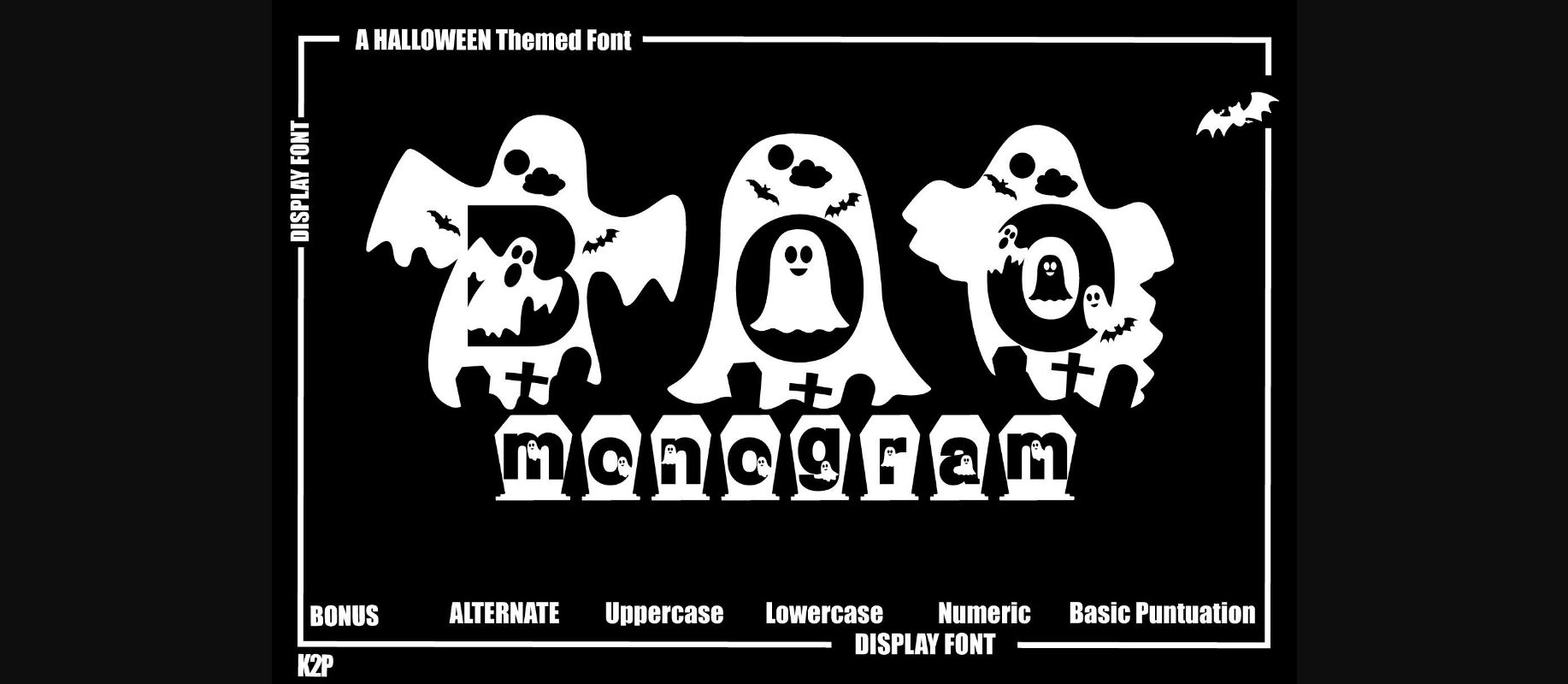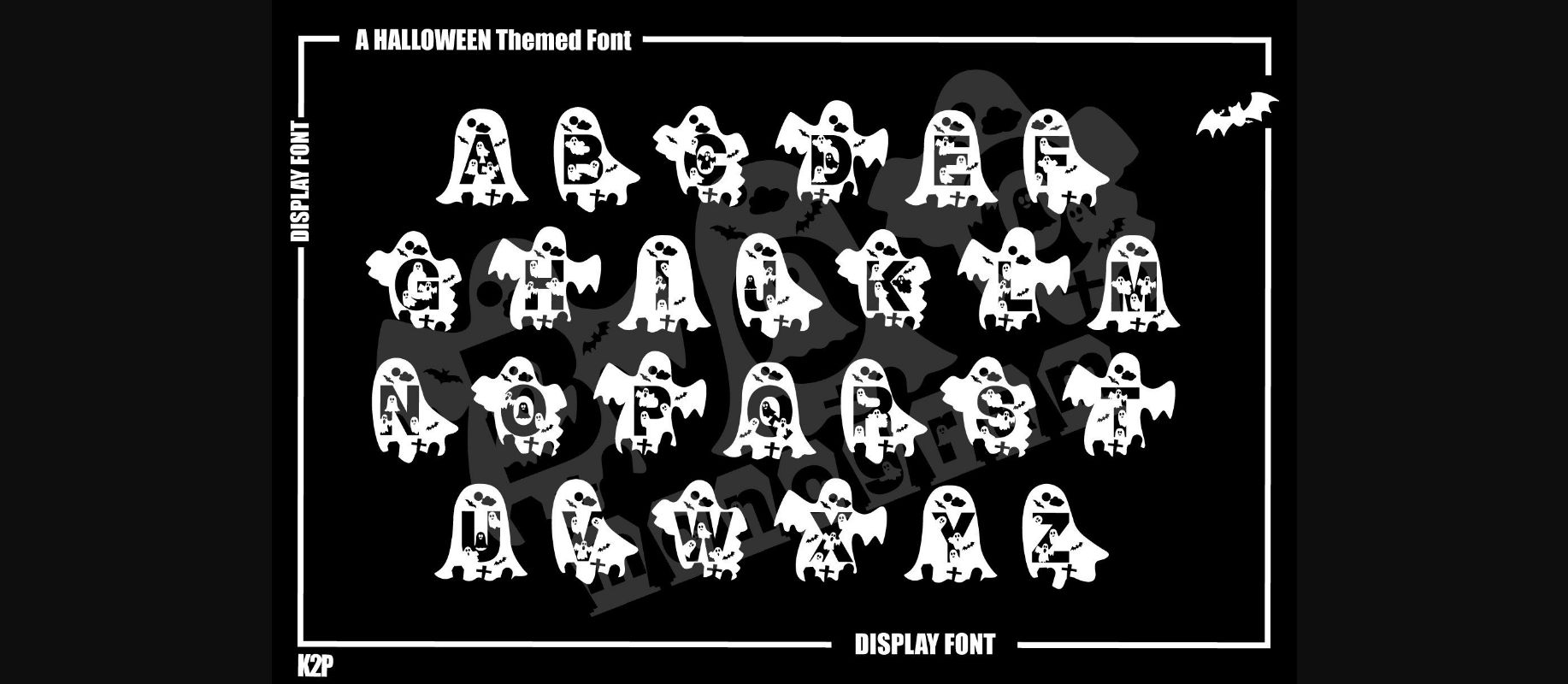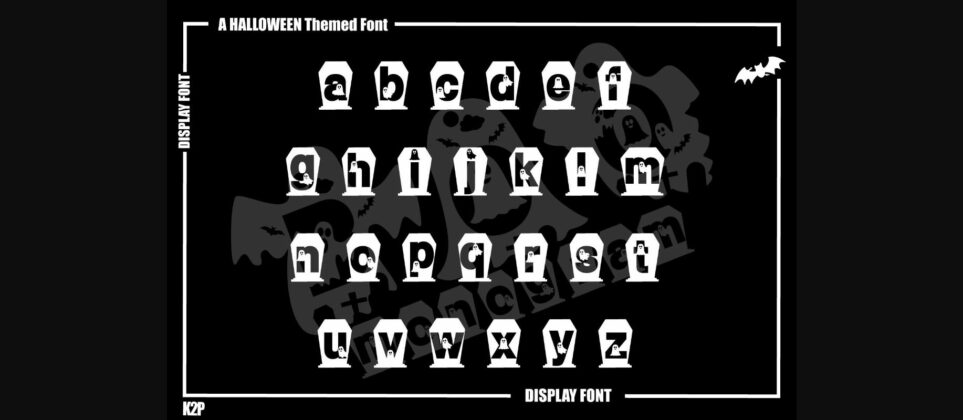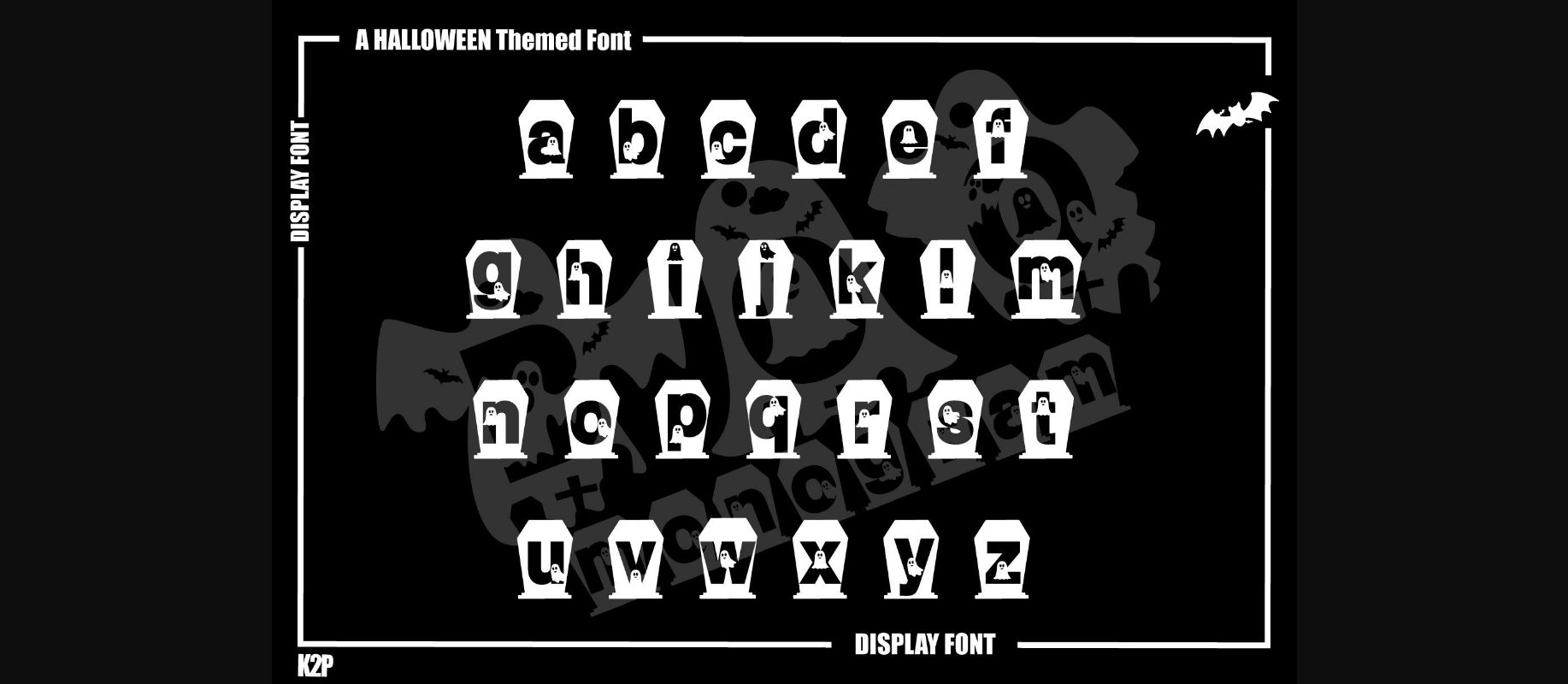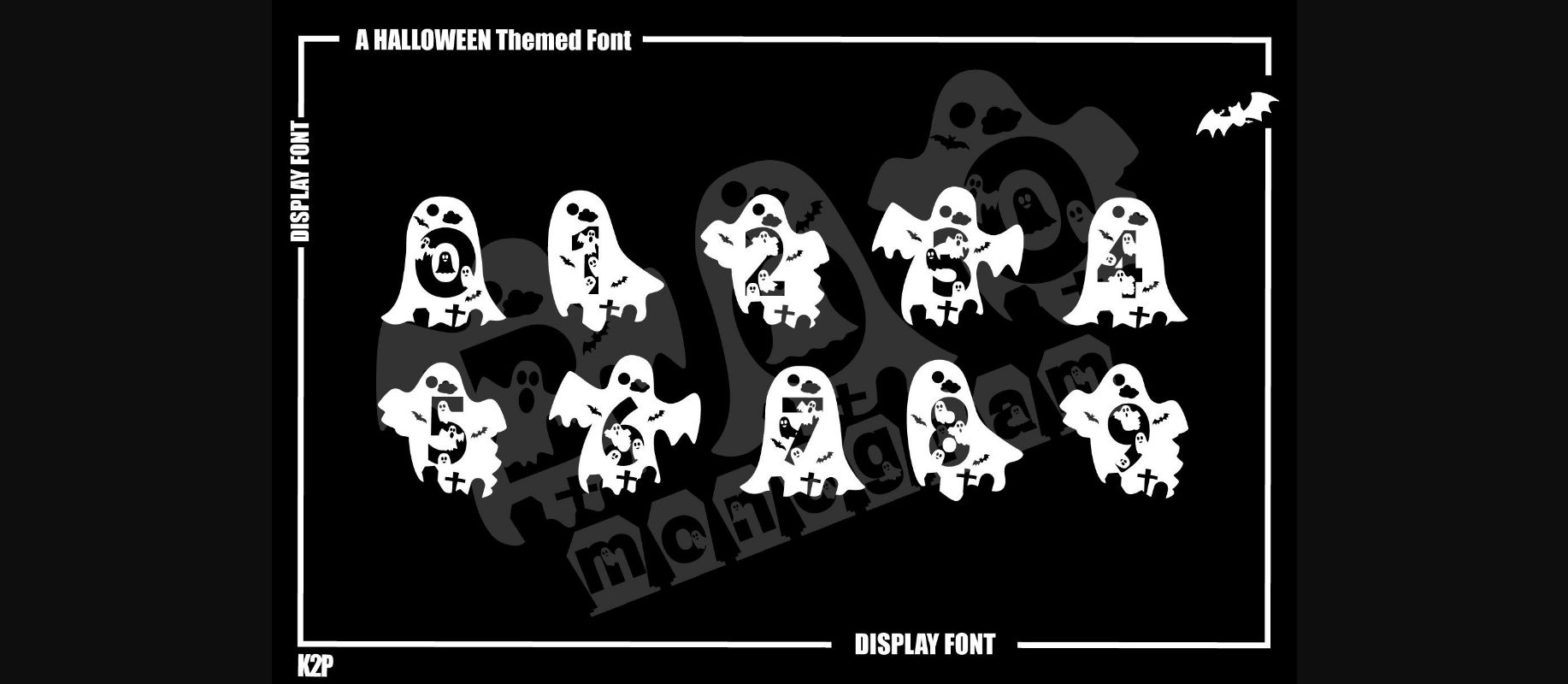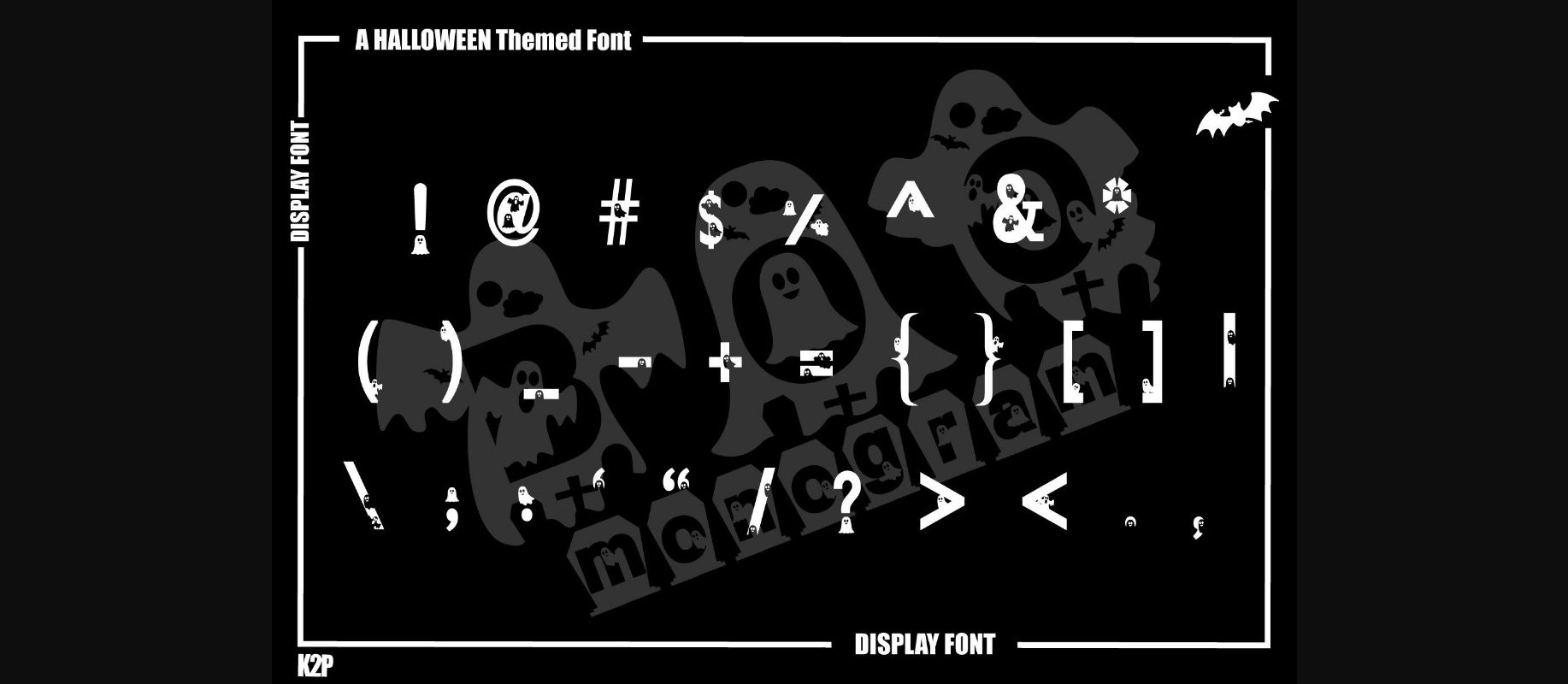
Boo Monogram Font
About Boo Monogram Font
Boo Monogram is a cool, quirky, and thick-lettered decorative font, featuring fun little monsters as ornaments. Whether you use it for cartoon-related designs, children’s games, or just any creation that requires a lovely touch, this font will be an amazing choice